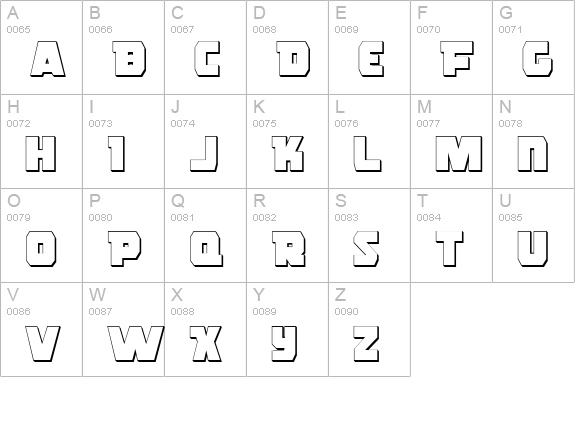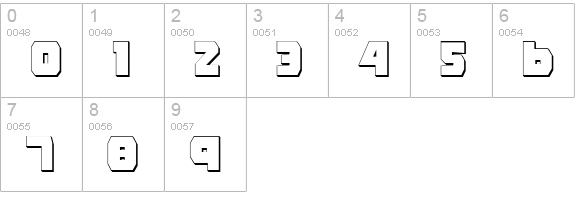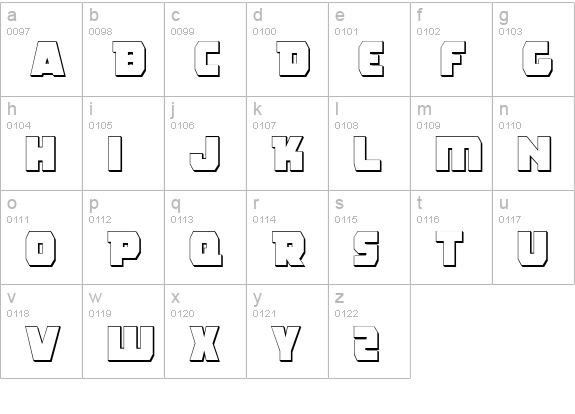
Rogue Hero Outline font is a bold and dynamic typeface that exudes a sense of adventure and rebellion. Its sharp lines and edgy design make it perfect for creating eye-catching headlines and titles that demand attention. This unique font strikes the perfect balance between modernity and a touch of retro flair, making it versatile for a wide range of design projects. What sets Rogue Hero Outline font apart is that it is not only visually striking but also completely free to download. You can easily access this font and add it to your collection without any cost at FontsMarket.com. Whether you are working on posters, logos, or branding materials, Rogue Hero Outline font offers a bold and captivating look that will make your designs stand out. Embrace the spirit of adventure and creativity with this free and stylish font today!